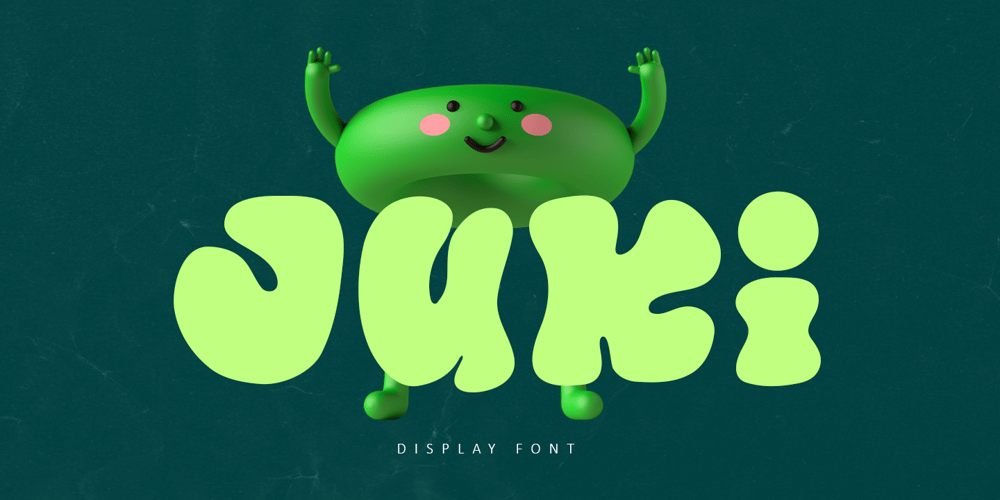
Juki Font Family was designed by Bayu Suwirya and published by Illushvara. Juki contains 1 styles and family package options. Juki is a handwritten font with bold display fun character. The groovy letters make this font great for logotype, headline, poster film, food packaging, magazine, labels or any type of advertising purpose.FEATURES : Uppercase, Lowercase, Number, Punctuation, Multilingual, PUA Encode, Opentype.If you have any question, don’t hesitate to contact me. Happy Designing !!!Thank You, Illushvara Design